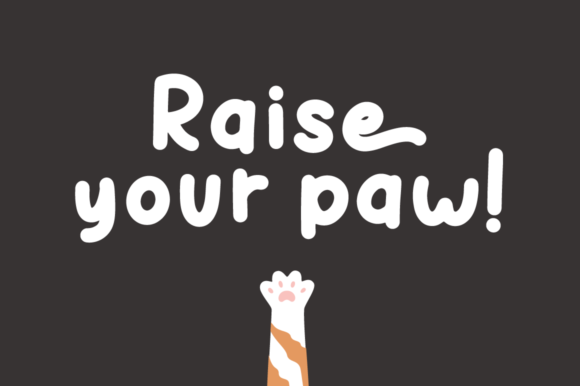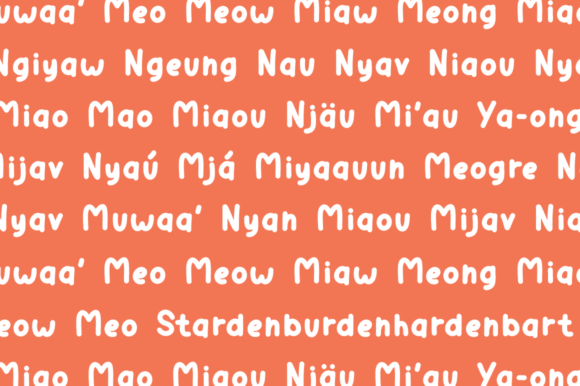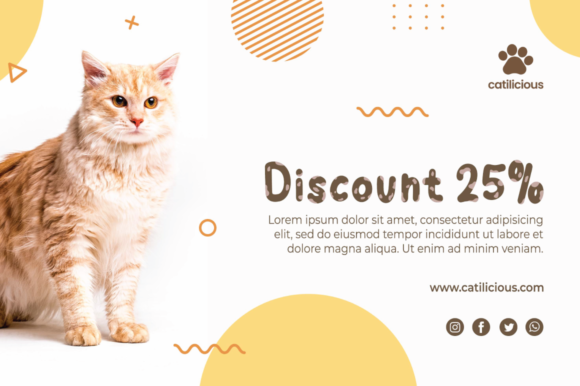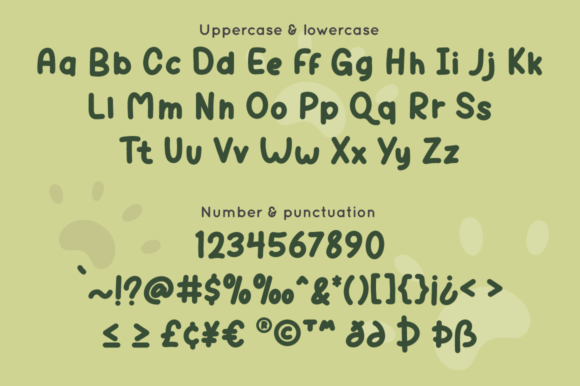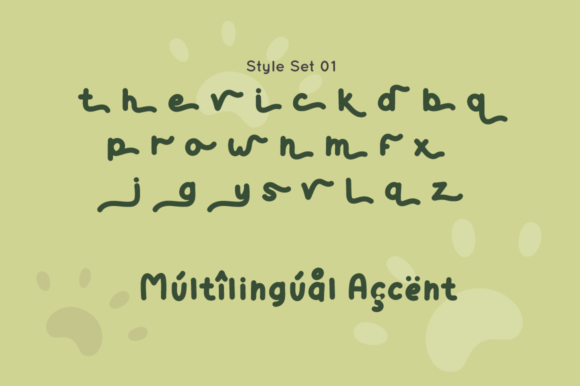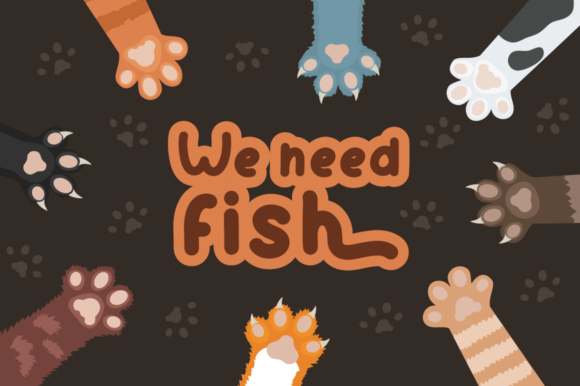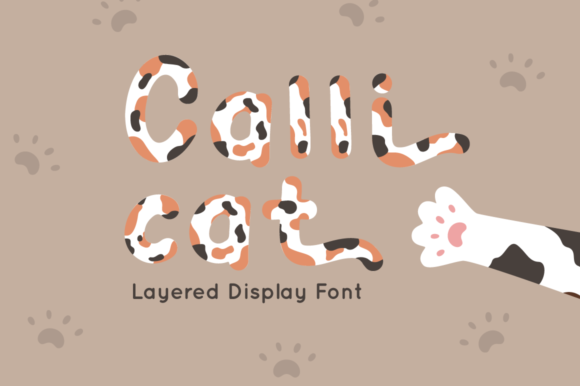
Introducing Calli Cat Font: A Whimsical Display Font for Magical Designs
Are you a designer or crafter looking for a unique and captivating font to elevate your creative projects? Look no further than Calli Cat Font, an incredibly cool and whimsical display font that’s sure to transport your designs to a magical world. With its modern and distinct style, Calli Cat Font is the perfect addition to your font collection.
The Magic of Calli Cat Font
Calli Cat Font is a one-of-a-kind display font that’s designed to add a touch of whimsy and fantasy to your designs. Its modern and distinct style sets it apart from other fonts, making it perfect for designers and crafters who want to create unique and eye-catching projects. Whether you’re working on a branding project, a craft tutorial, or a digital design, Calli Cat Font is sure to make your designs stand out.
Key Features of Calli Cat Font
- Whimsical Design: Calli Cat Font features a playful and imaginative design that’s perfect for creating magical and fantastical designs.
- Modern Style: With its clean lines and modern aesthetic, Calli Cat Font is perfect for designers and crafters who want to create contemporary and stylish designs.
- Distinctive Characters: Each character in Calli Cat Font is carefully crafted to ensure that your designs stand out from the crowd.
- Easy to Read: Despite its whimsical design, Calli Cat Font is easy to read, making it perfect for use in a variety of design projects.
Uses for Calli Cat Font
Calli Cat Font is a versatile font that can be used in a variety of design projects, including:
- Branding and Logo Design: Use Calli Cat Font to create a unique and memorable brand identity.
- Craft Tutorials: Add a touch of whimsy to your craft tutorials with Calli Cat Font.
- Digital Design: Use Calli Cat Font to create eye-catching digital designs, such as social media graphics and blog posts.
- Paper Crafting: Add a touch of magic to your paper crafting projects with Calli Cat Font.
Tips for Using Calli Cat Font
To get the most out of Calli Cat Font, here are a few tips:
- Use it sparingly: Calli Cat Font is a bold and eye-catching font, so use it sparingly to avoid overwhelming your designs.
- Pair it with other fonts: Experiment with pairing Calli Cat Font with other fonts to create a unique and visually appealing design.
- Experiment with colors: Calli Cat Font looks great in a variety of colors, so don’t be afraid to experiment and find the perfect color scheme for your design.
In conclusion, Calli Cat Font is an incredibly cool and whimsical display font that’s perfect for designers and crafters who want to add a touch of magic to their designs. With its modern and distinct style, Calli Cat Font is sure to immerse your designs into a magical world. So why not give it a try and see the magic for yourself?